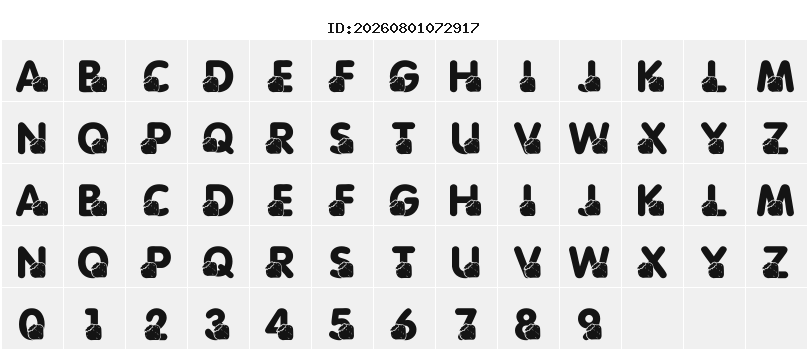
LMS Moms Birthday Treat Preview
• Font Name: LMS Moms Birthday Treat
LMS Moms Birthday Treat.ttf is a modern, elegant sans-serif font designed for ultimate readability and visual harmony. Perfect for branding, headlines, web design, and print materials.